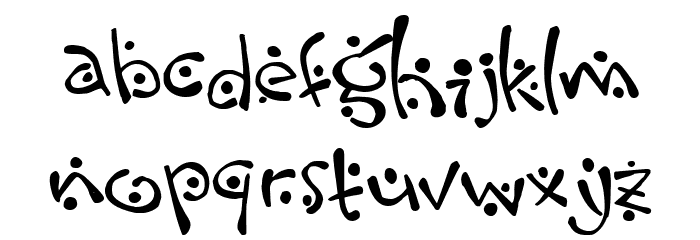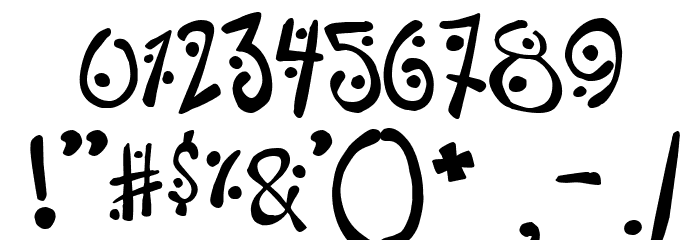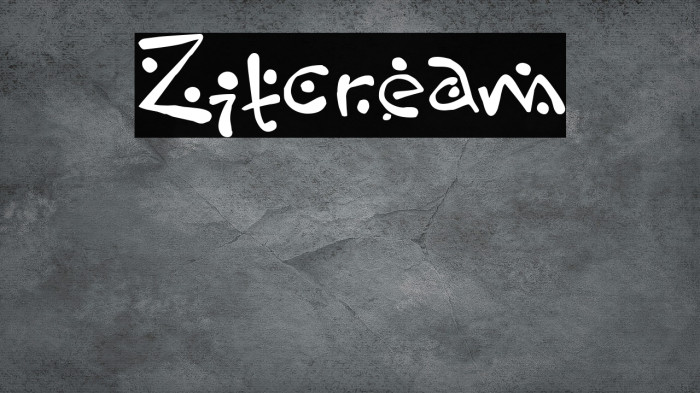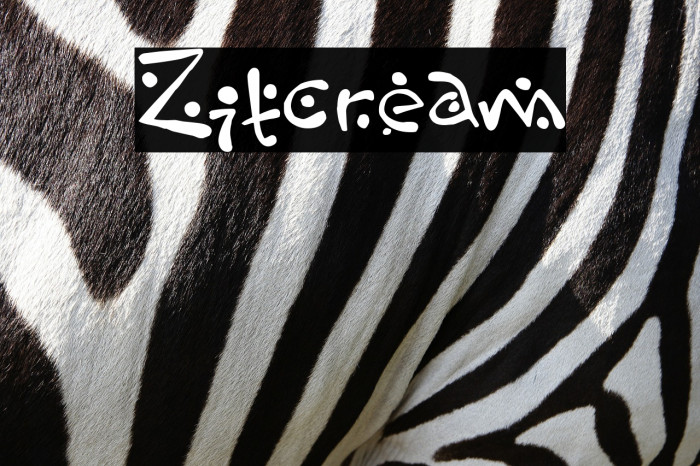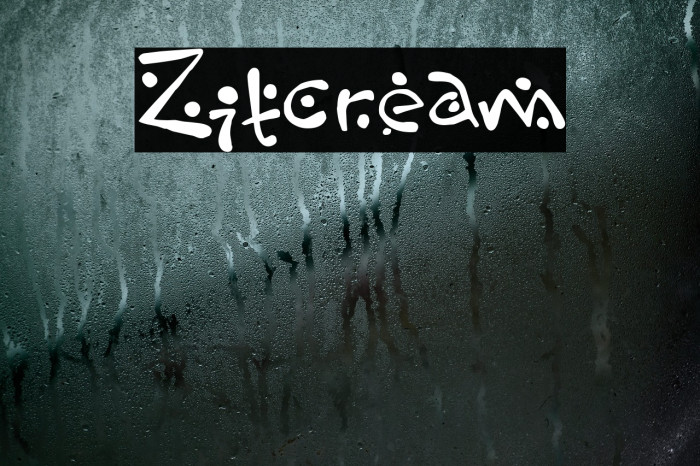
Zitcream Font
This playful and whimsical font features a unique and quirky design with irregular shapes and dots incorporated into the letterforms. The characters have a hand-drawn appearance, adding a sense of fun and creativity. The uppercase and lowercase letters maintain a consistent style, with each character exhibiting a distinct personality. The numbers and special characters follow the same playful theme, making the font suitable for projects that require a lighthearted and informal touch. The overall design is bold and eye-catching, perfect for capturing attention.
A playful, hand-drawn font with quirky, irregular shapes and dot accents.
- Proposed Projects: Ideal for children's books, comic strips, playful branding, party invitations, and creative posters.
- Overall Style: Whimsical